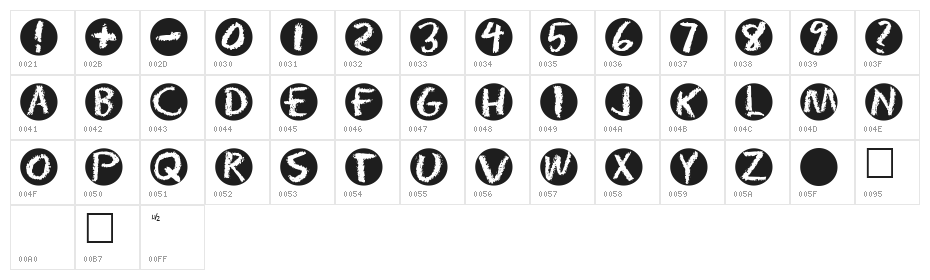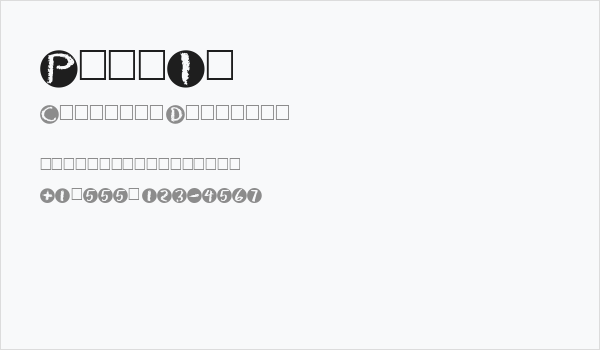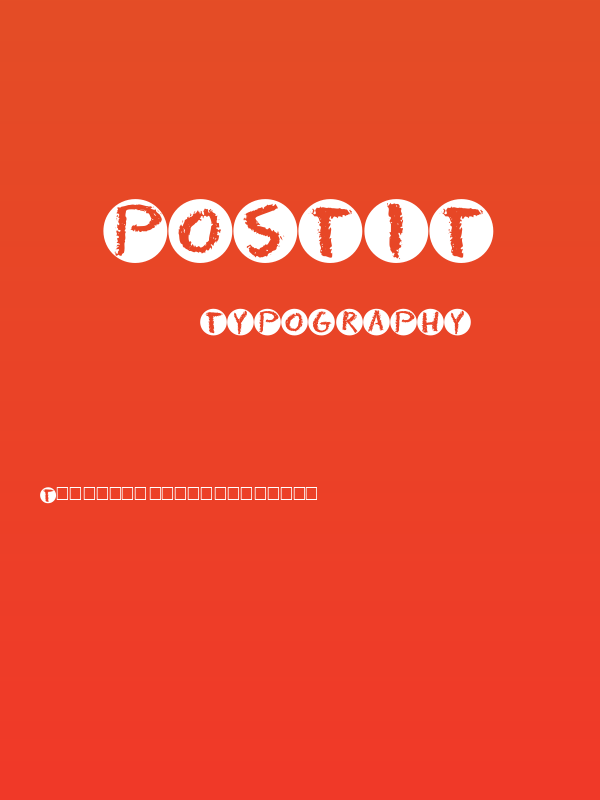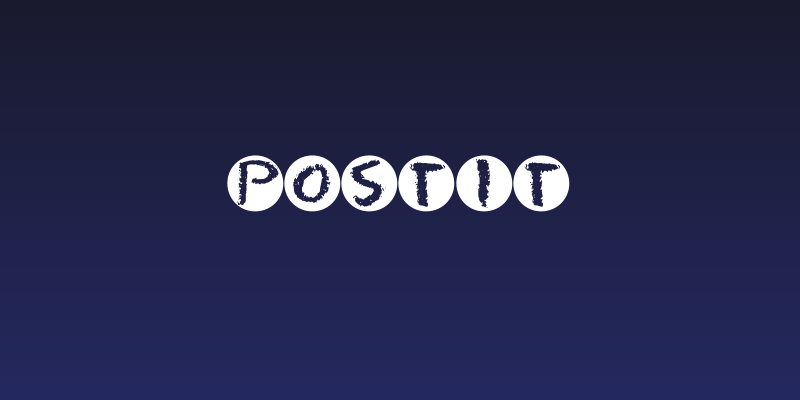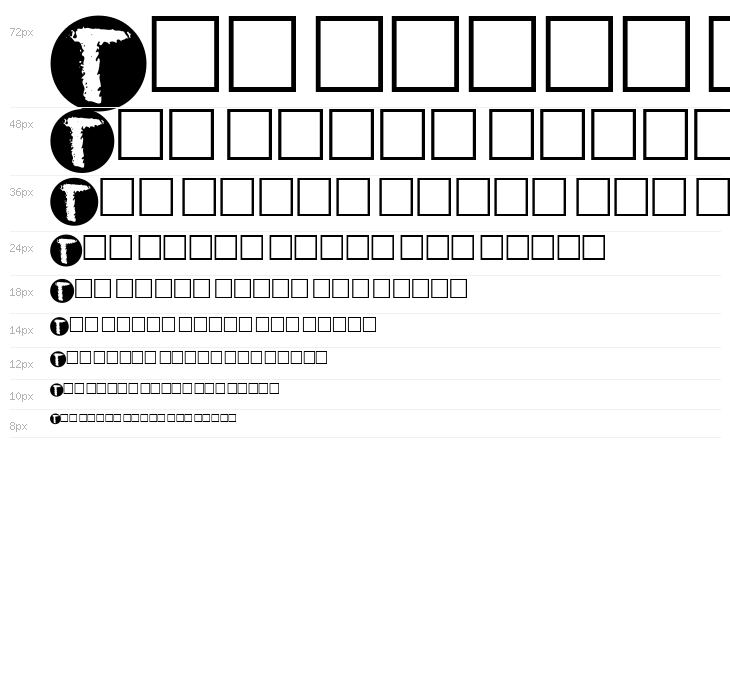
PostIt Font
PostIt Description
This font features a playful and artistic style, characterized by its chalk-like texture and bold presentation. Each character is enclosed within a solid black circle, creating a striking contrast that enhances readability. The uppercase letters are prominently displayed, with a rough, hand-drawn appearance that adds a touch of whimsy and creativity. The numbers follow the same design, maintaining consistency across the font. This unique style is reminiscent of chalkboard writing, making it ideal for projects that require a casual yet impactful look.
| Overall Style | Playful, Artistic |
| Use Case | Headlines, Posters, Educational Materials |
| Proposed Projects | Ideal for educational materials, children's books, playful branding, or any project requiring a creative and informal touch. |